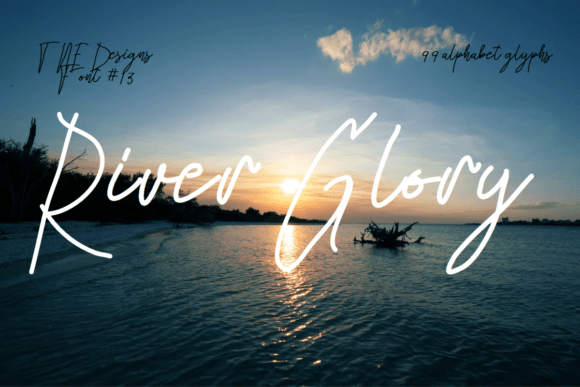
Welcome to the world of River Glory - a script font that will redefine your creative horizons. This enchanting font embodies the essence of elegance, flowing with grace like a river's gentle current. Its meticulously crafted characters dance harmoniously, creating a visual symphony that captures the eye and stirs the soul.
Immerse yourself in the beauty of River Glory, a font that seamlessly blends the classic and the contemporary. Its delicate strokes evoke a sense of nostalgia, while its modern sensibility ensures it remains relevant and captivating. This font is a true chameleon, seamlessly adapting to a myriad of design projects, from logos and branding to invitations and greeting cards.
Step into the spotlight with River Glory, a font that commands attention without overpowering. Its delicate lines and airy presence lend a touch of sophistication and charm to any project. Let your words take center stage as River Glory enhances them with an understated elegance that speaks volumes.
Indulge in the versatility of River Glory, a font that effortlessly complements a wide range of design styles. Whether you're crafting a modern resume or designing an enchanting wedding invitation, River Glory rises to the occasion, adding a touch of magic to every creation. Its versatility knows no bounds, allowing you to explore your creativity without limits.